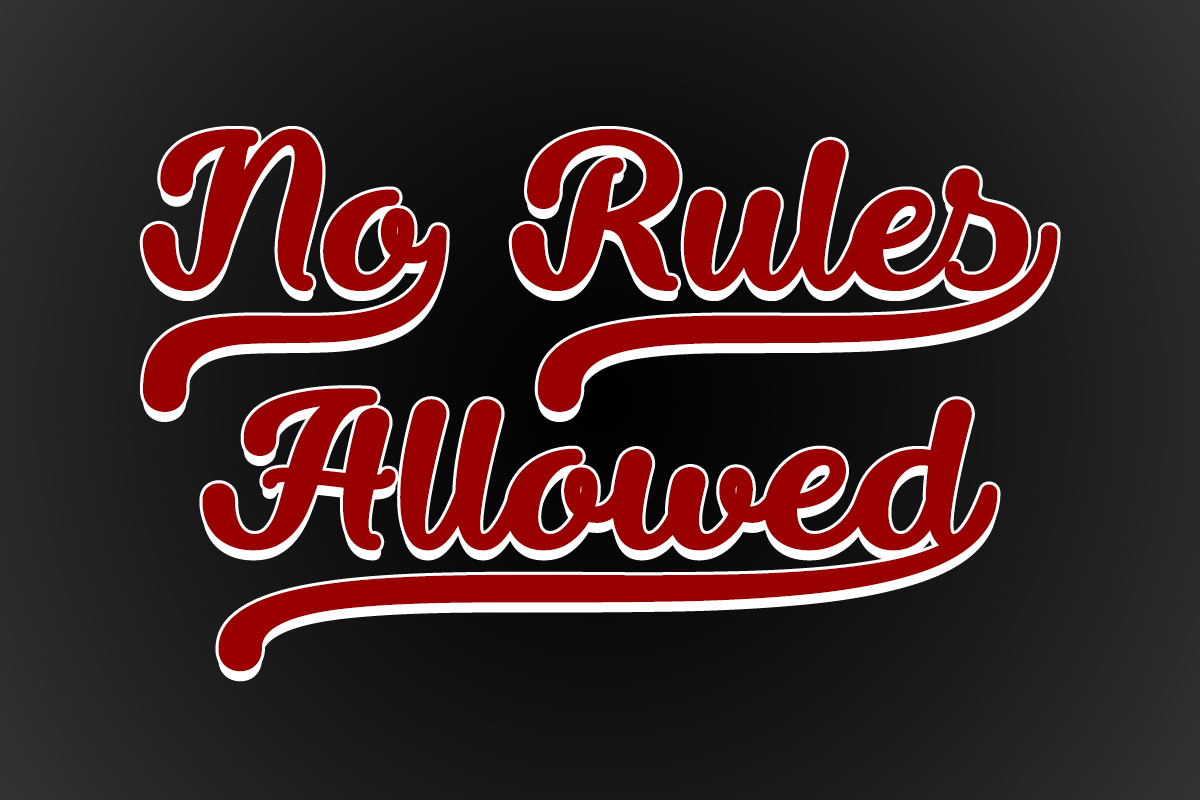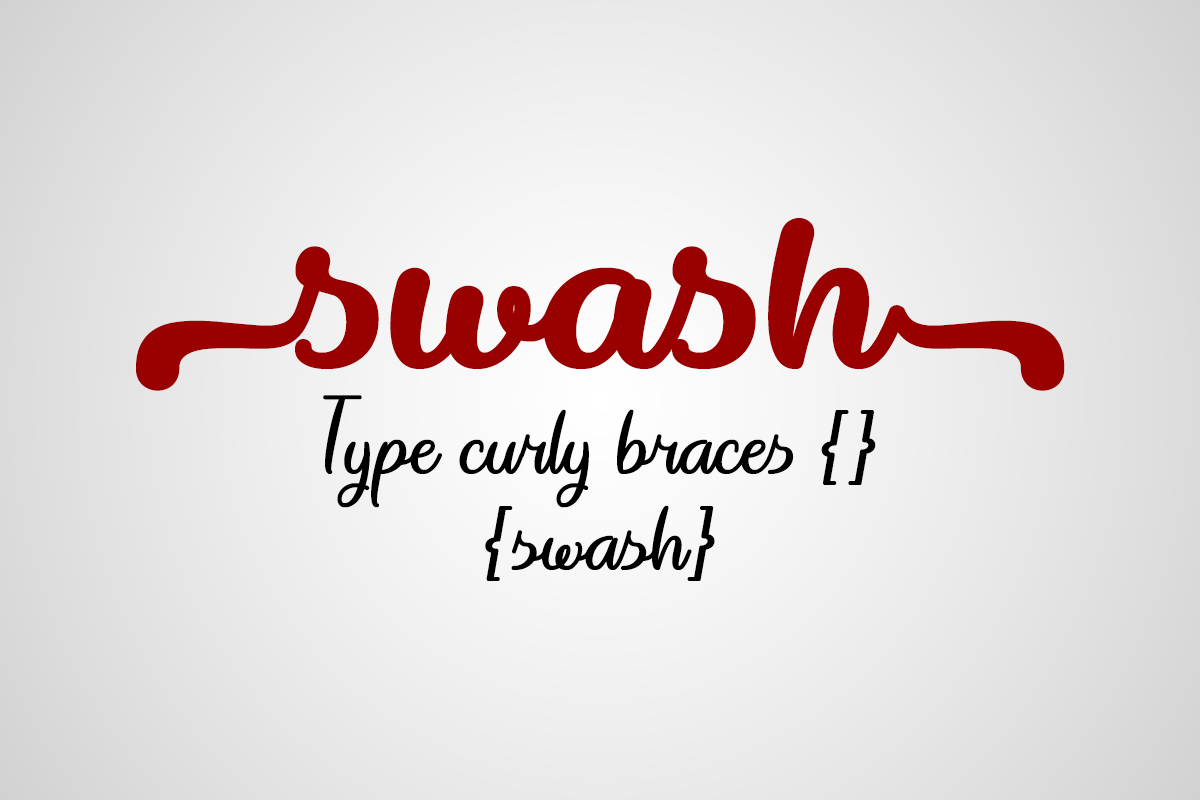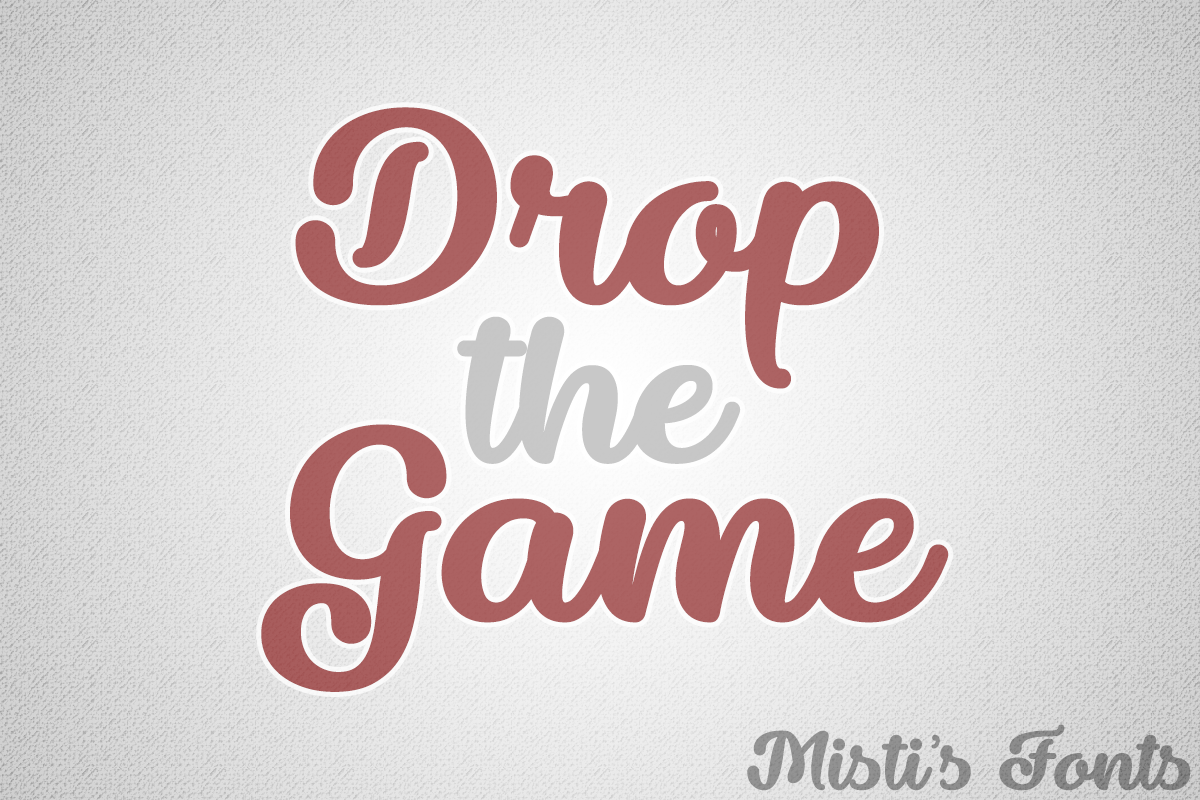
Drop the Game
Drop the Game is a bold typeface that is excellent for logos, posters, product labels and so much more! Includes swashes to add extra punch to your designs.
Special Symbols
Type {} (curly braces) for the bigger lowercase beginning and ending swashes
Special features
• This font contains underline swashes in 15 different lengths to add additional flair and style to your projects!
To create a swash: Type the word, then type underscores until you have achieved the desired length.